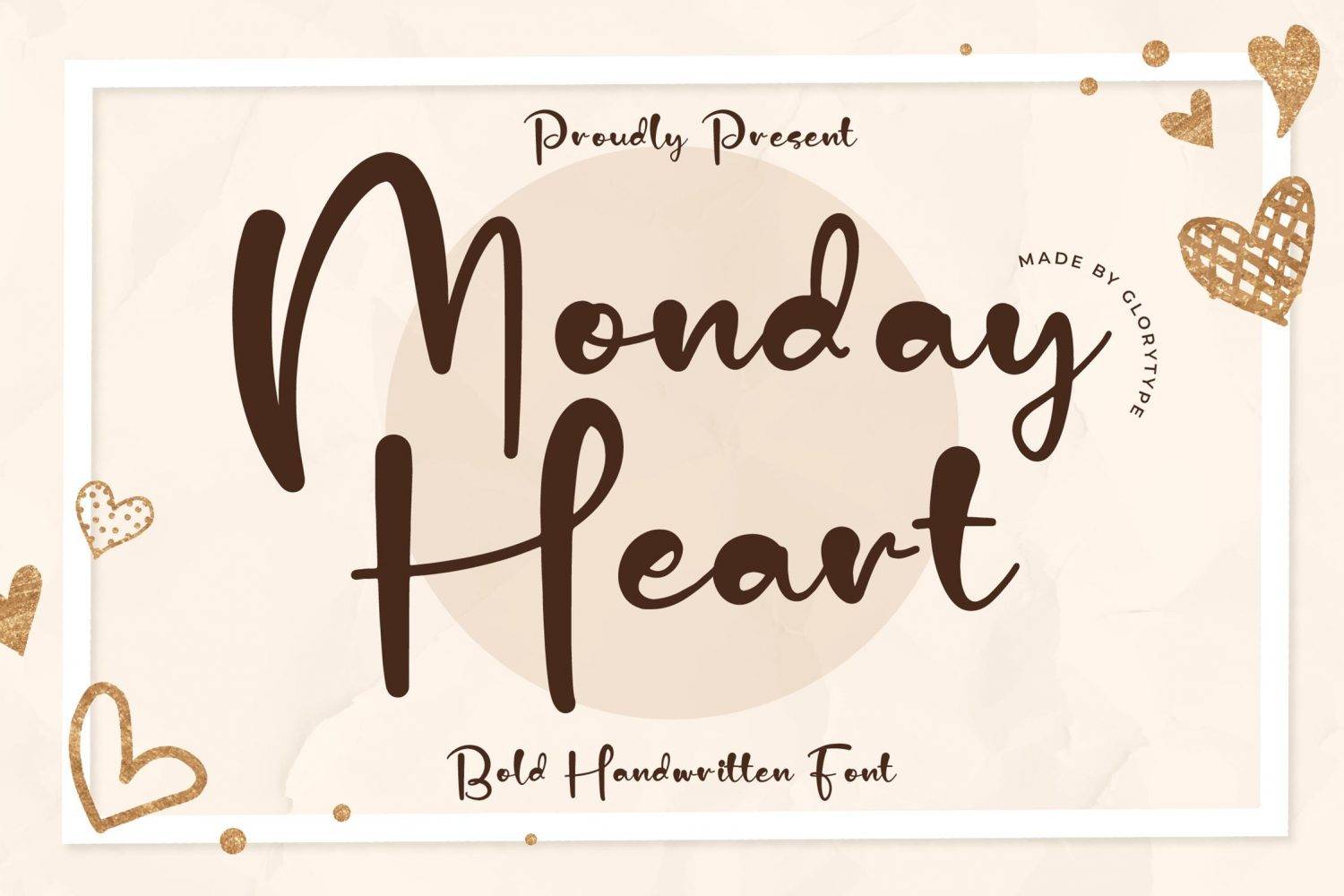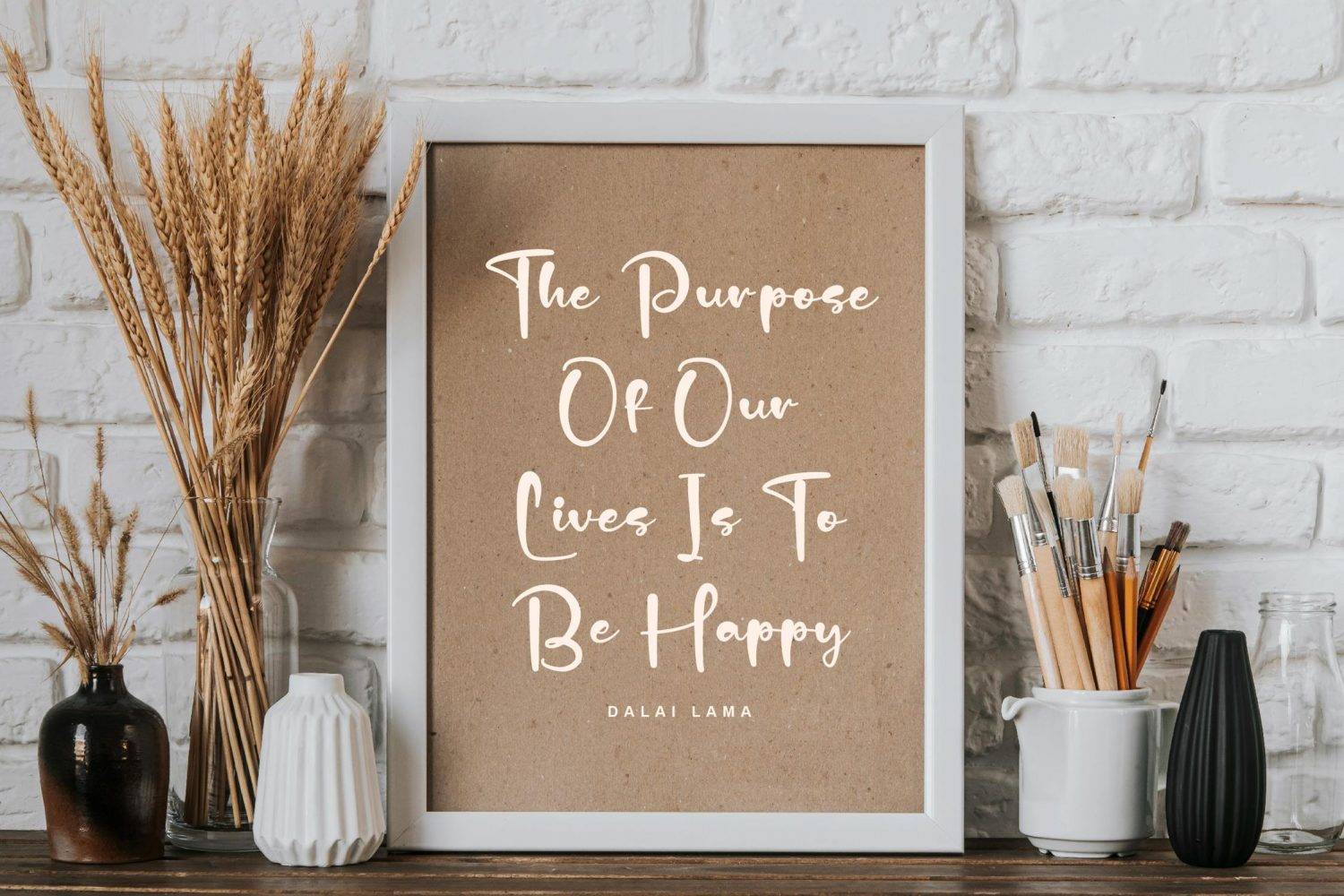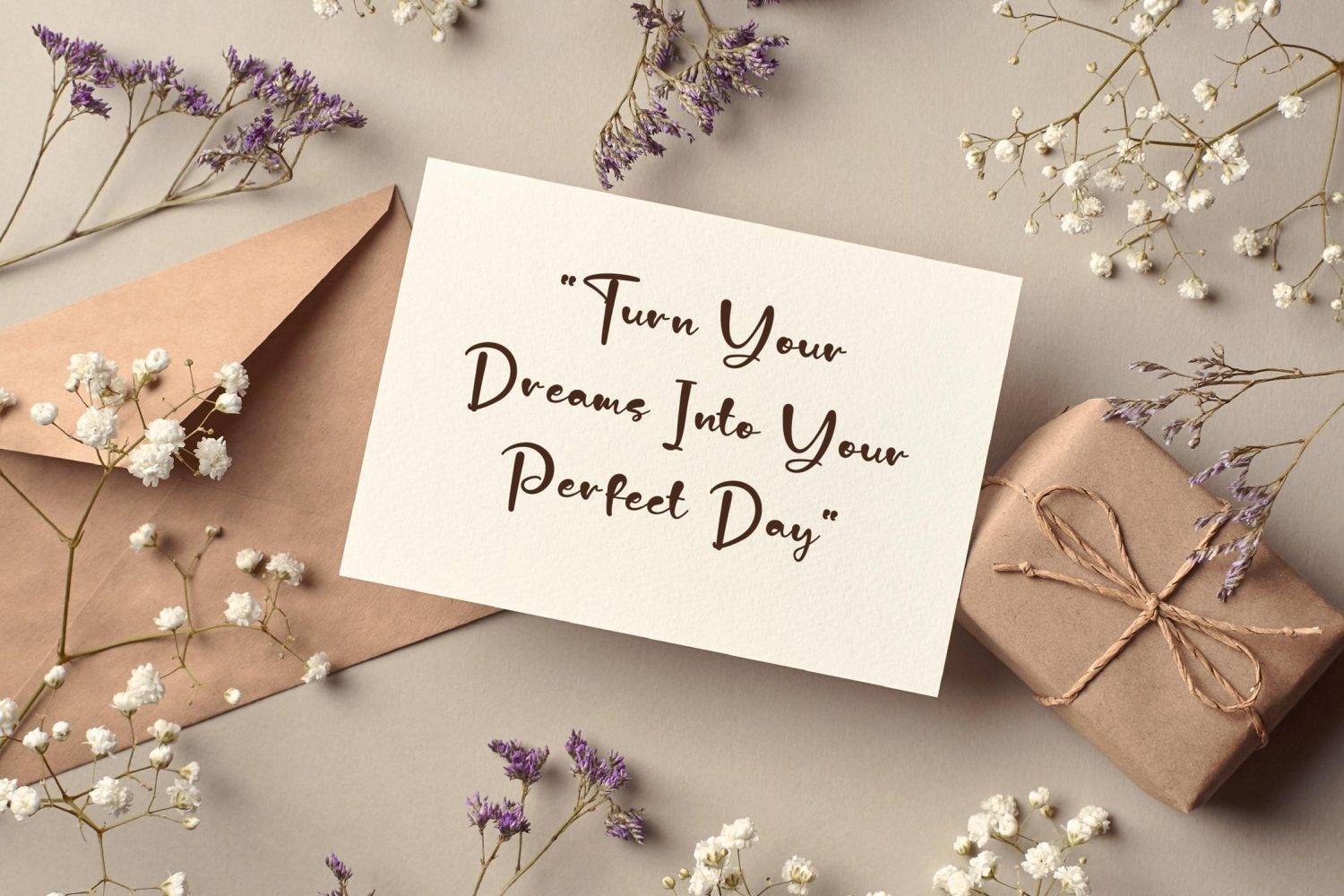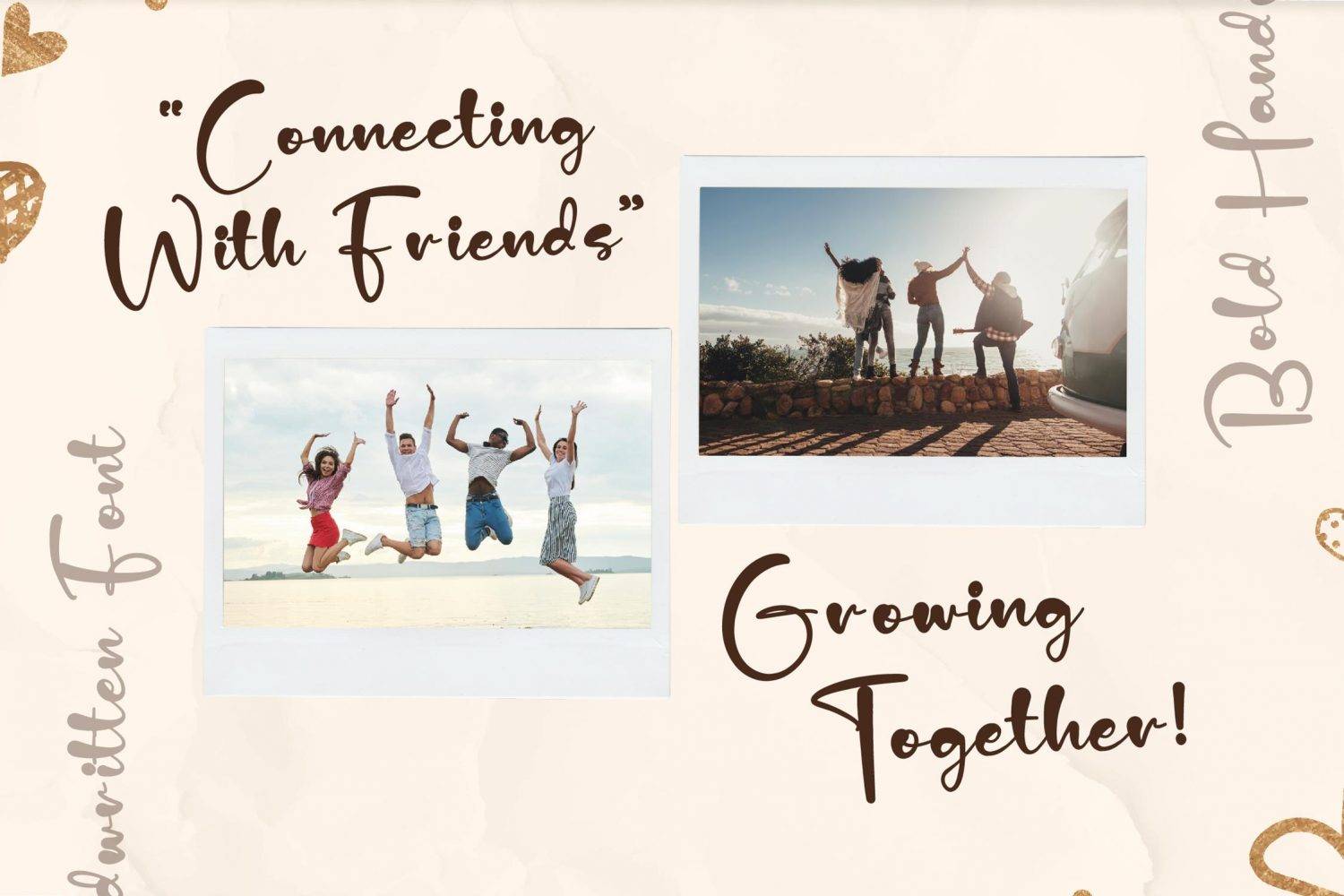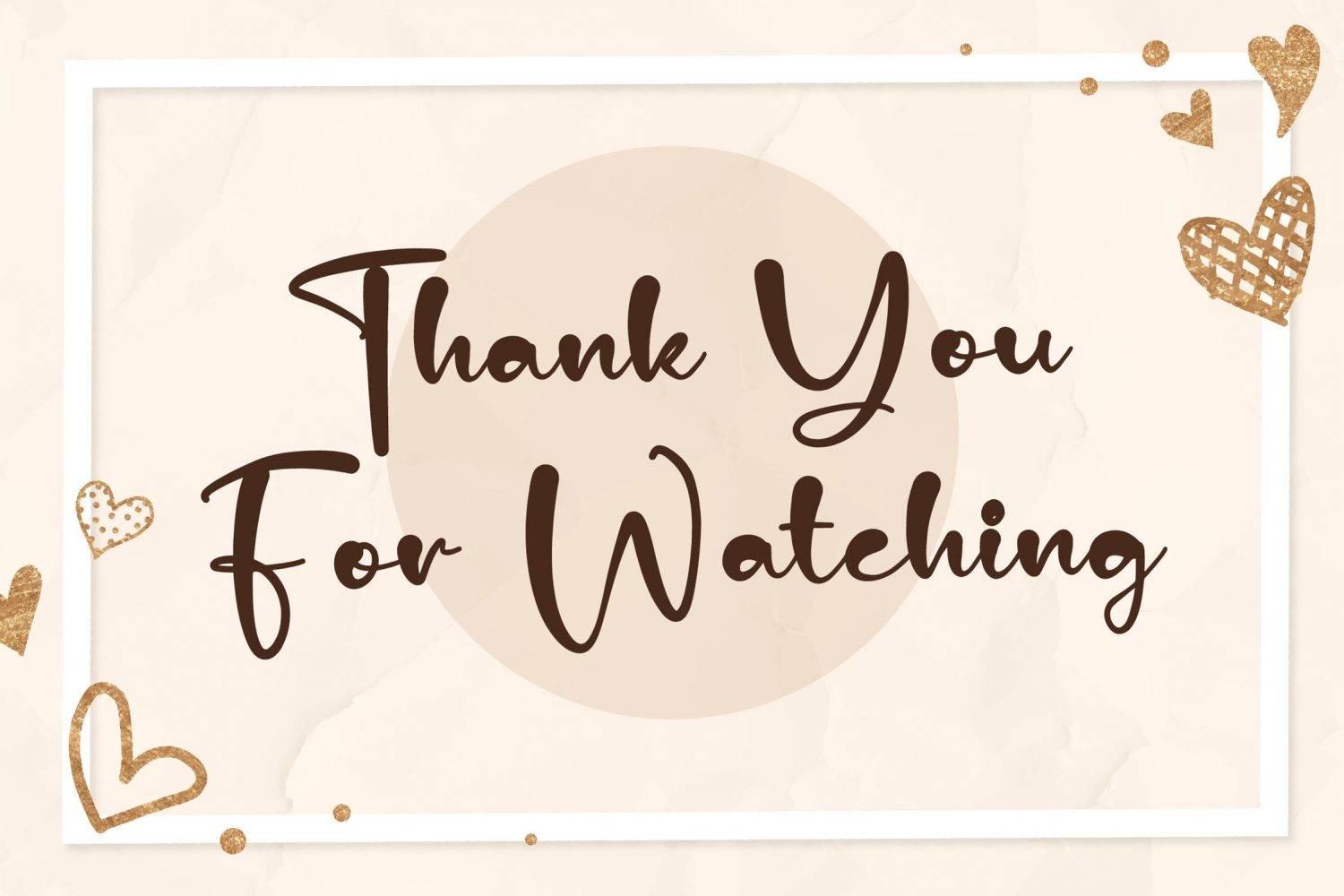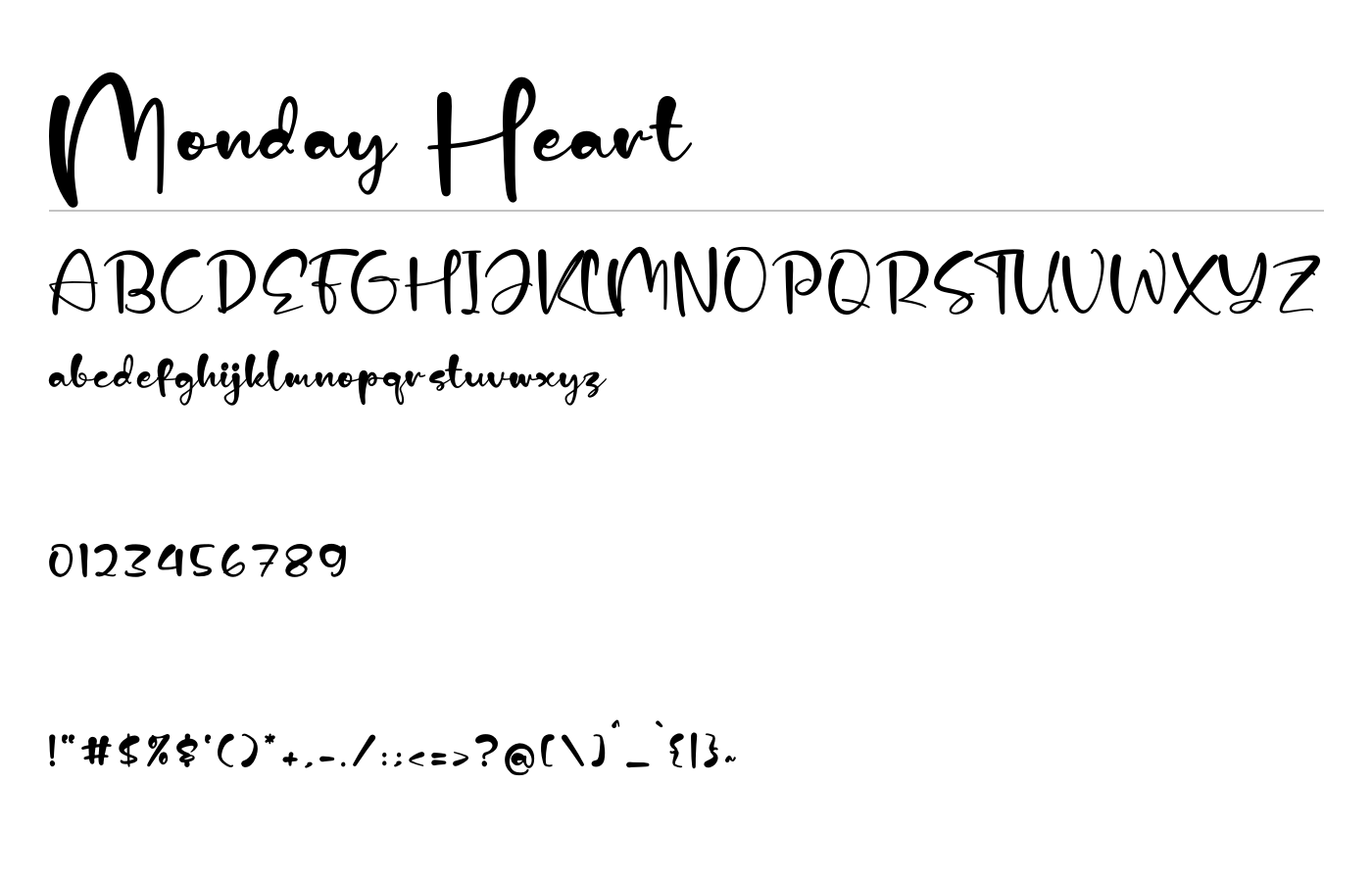
Monday Heart is a playful and charming script font with a casual handwritten style that combines bold and delicate strokes for a lively, friendly feel. Its uneven, flowing letterforms and varied stroke widths make it perfect for creative projects like greeting cards, branding, and social media, where a warm, personal touch is desired. This font works best in headlines and decorative text, adding a whimsical and approachable vibe to any design.
Monday Heart Font
About Monday Heart Font
| Font family | Monday Heart Font |